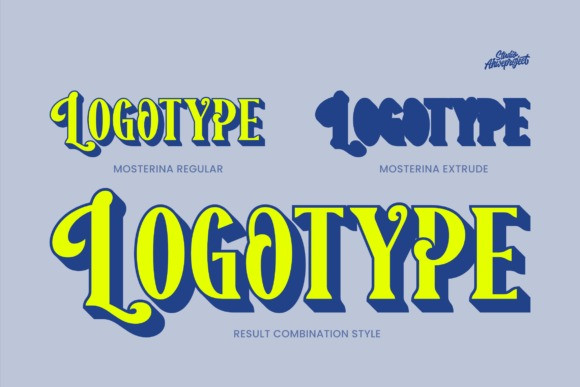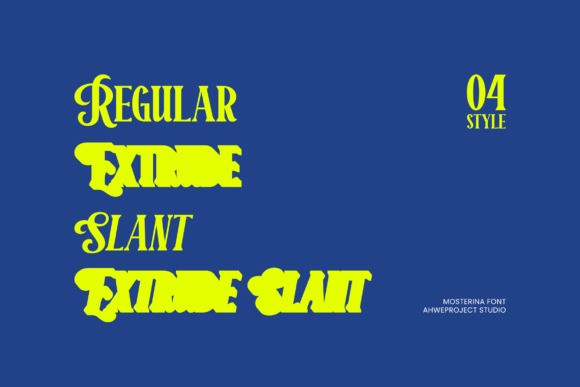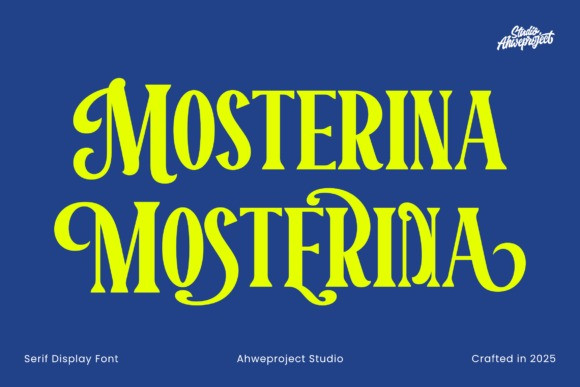
Mosterina Font
Mosterina Font is a vintage–modern serif display with strong contrast, elegant, sharp terminals, and dynamic swashes for dramatic accents. Its expressive letterforms make headlines and logos instantly eye-catching—perfect for branding, posters, editorial/fashion, product packaging, website hero sections, YouTube thumbnails, and seasonal campaigns.
Great for: coffee & roastery logos, cosmetic labels, event posters, magazine covers, video titles, boutique signage, and creative projects with retro, classic, or premium editorial vibes.